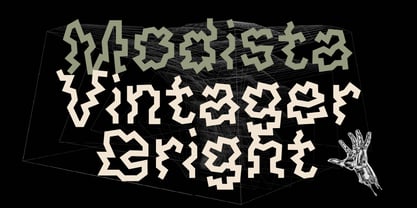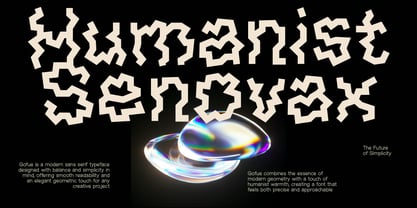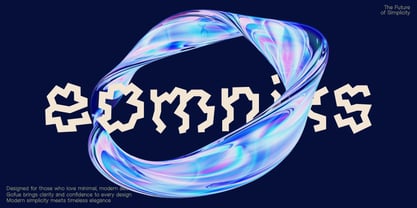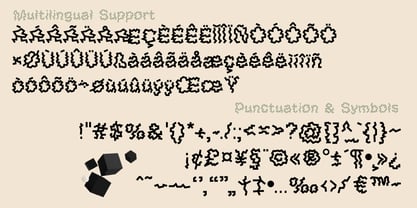
Gofue
by Erifqizefont
The Gofue Font Family was designed by Eka Rifqi Setiawan and published by Erifqizefont. Gofue contains 1 styles. More about this family
Gofue is a zigzag display font built with bold, irregular, and highly expressive letterforms. Each character features sharp angular strokes that create a wild, experimental, and abstract visual style. This font delivers a strong artistic personality—perfect for designers who want to make a striking statement. Its broken-line construction, glitch-like rhythm, and unconventional shapes make Gofue ideal for music posters, album covers, fashion visuals, editorial layouts, branding projects, creative event promotions, and any modern design that needs a bold alternative aesthetic. Gofue transforms every word into a unique piece of visual artwork with its energetic and unconventional form.
Designers: Eka Rifqi Setiawan
Foundry: Erifqizefont
Introducing Erifqizefont, a Foundry led by Eka Rifqi Setiawan. Originating from Eka's experience as an Icon Designer, Erifqizefont specializes in bold, symmetrical Display Fonts with futuristic elements, occasionally exploring retro and whimsical styles. Based in Indonesia, Erifqizefont integrates the nation's cultural heritage into its designs. As a sole proprietor, Eka focuses on crafting superior, unique fonts, setting Erifqizefont apart in the industry.